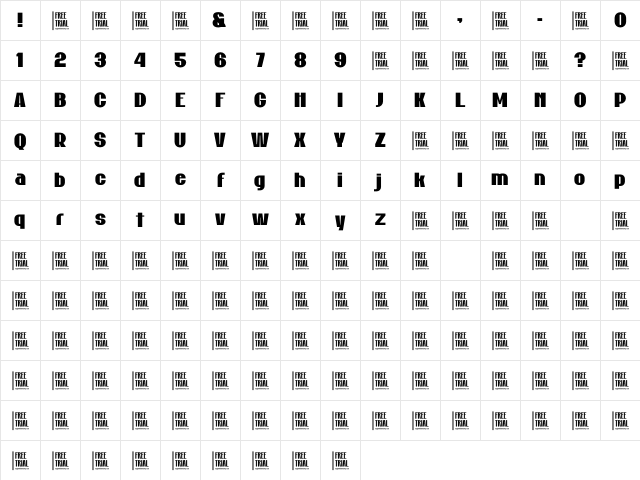
Complete Plot Hole - Free Trial Regular glyph index. Displaying only characters natively supported by Plot Hole - Free Trial Regular font.
Plot Hole - Free Trial is a composed and adaptable typeface that performs quietly and consistently across a wide range of design contexts.